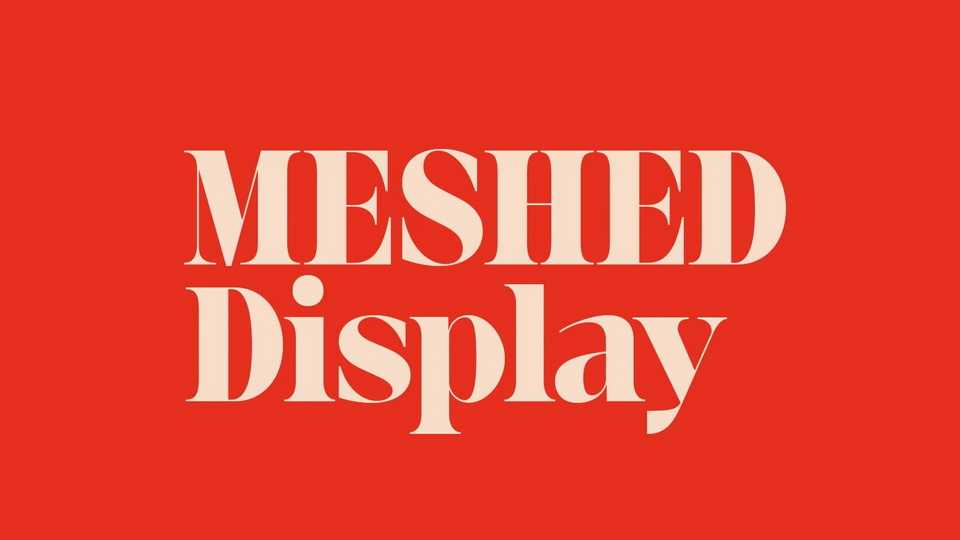
Download Meshed Display font, a variable serif typeface. Serifs have a strong, vertical contrast between thick vertical stems and fine horizontal hairlines. Use Meshed Display in big size and let the detailing of the typeface talk to your consumers.